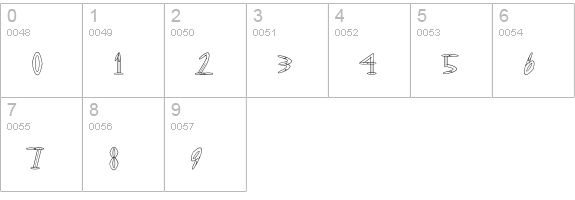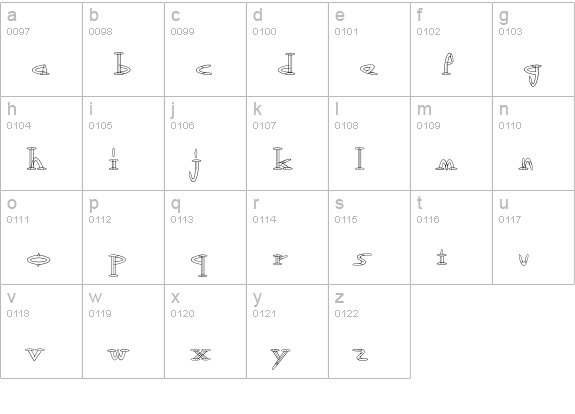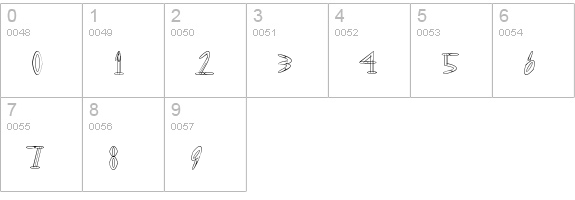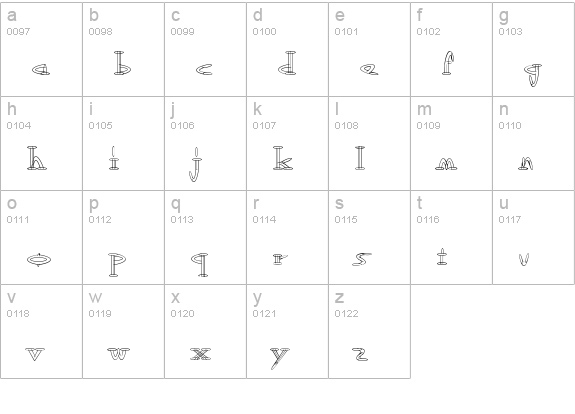
Outwest-Light is a refined, elegant variant in the Outwest typeface family \xE2\x80\x94 well suited to elegant body text, refined sub-headings, and luxury branding.
Outwest-Light font is a modern and versatile typeface perfect for adding a touch of sophistication to your projects. Its clean lines and elegant curves make it a great choice for both headlines and body text. This font exudes a sense of timeless style, making it ideal for a wide range of design applications. Best of all, Outwest-Light font is available for free download at FontsMarket.com. Whether you're working on a website, brochure, or any other design project, this font will elevate your work and give it a professional edge. Don't miss out on the opportunity to enhance your designs with this beautiful and free font option.